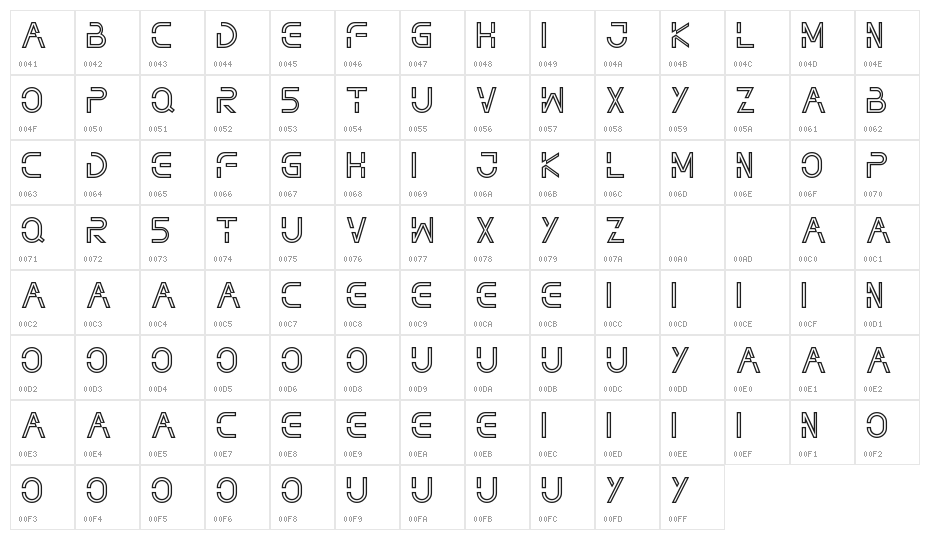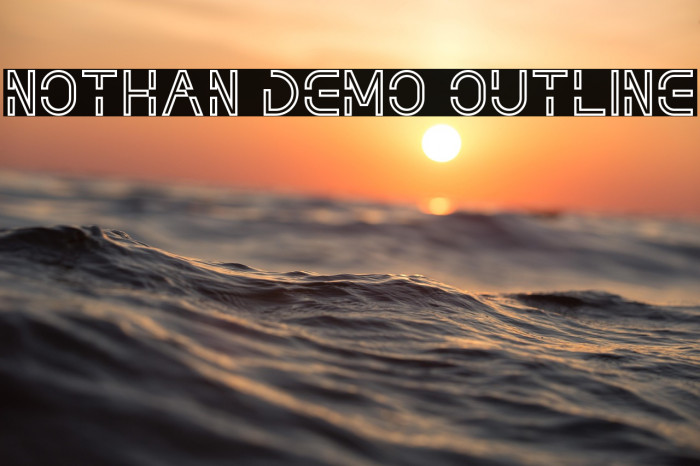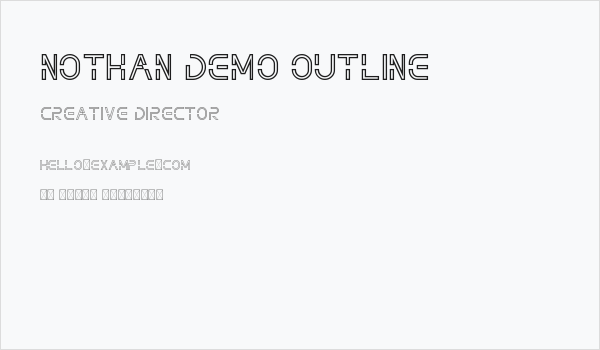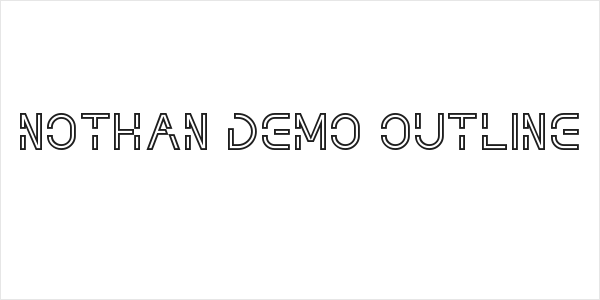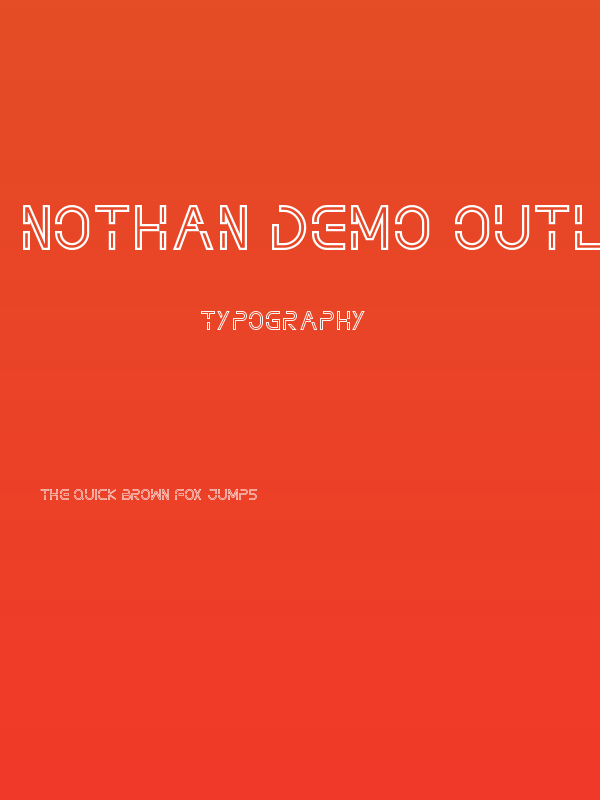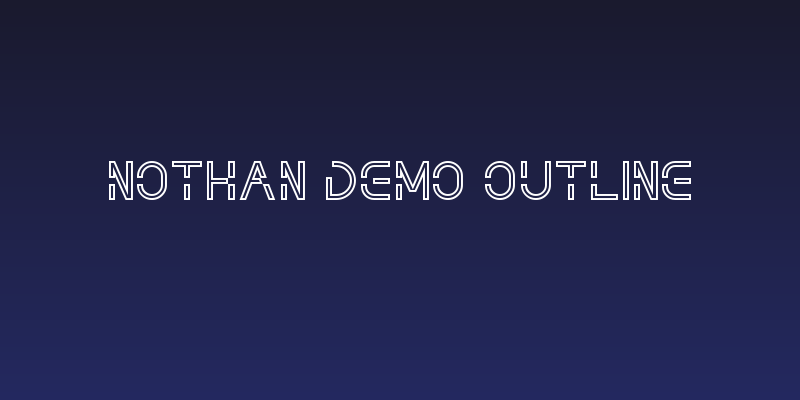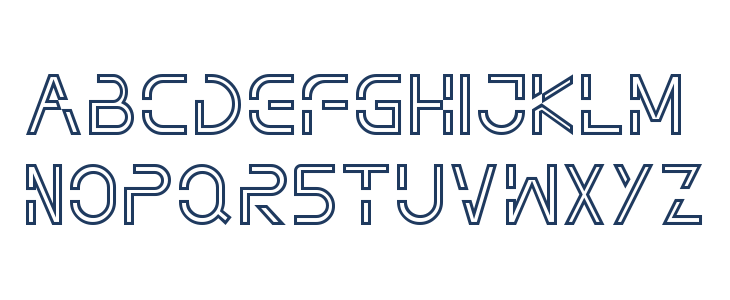
NOTHAN DEMO Outline Font
NOTHAN DEMO Outline Description
This font features a modern, geometric outline style with a futuristic aesthetic. The characters are constructed with clean, straight lines and sharp angles, creating a sense of precision and clarity. The outline design gives it a lightweight appearance, while the consistent stroke width maintains uniformity across all characters. This font is particularly striking in uppercase, with each letter exhibiting a unique, angular form that enhances its visual appeal. The spacing between characters is normal, ensuring readability while maintaining its distinctive style. The font's design is suitable for digital and print media, offering a contemporary look that stands out.
| Proposed Projects | Ideal for technology branding, sci-fi themed projects, modern posters, and digital interfaces. |